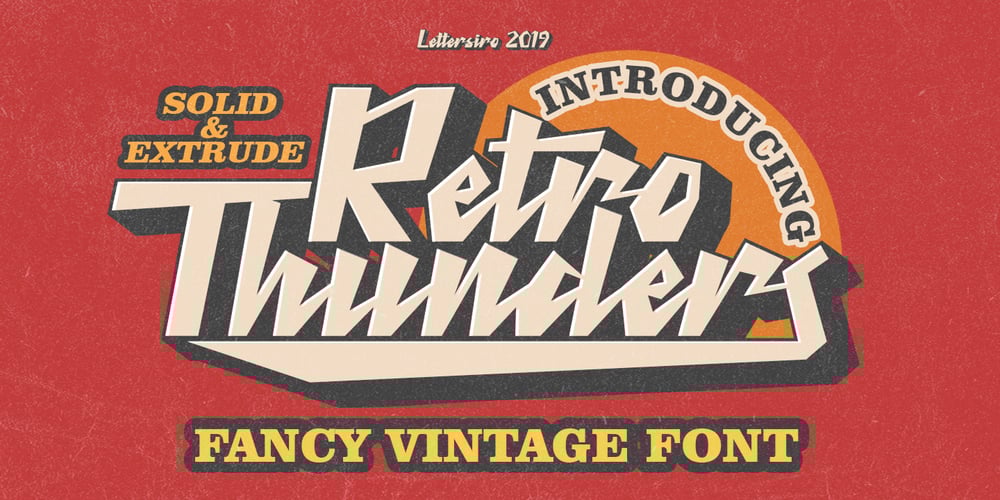
Retro Thunders Font Family was designed by Muhammad Sirojuddin and published by Lettersiro. Retro Thunders contains 2 styles and family package options. This is our newest product, inspired by retro style. We call this font “Retro Thunders”. Retro Thunders is perfect for any retro project, poster, logo, label, clothing, music album cover, and many others. Comes with solid and extrude style, you can use this font easily, and make save a lot of your time in creating. Retro Thunders also contains: – Opentype Features : swash, ligatures, stylistic alternate, ss01, ss02 , ss03 – 8 end swashes – Basic Latin Language Support (AÀÁÂÃÄÅCÇDÐEÈÉÊËIÌÍÎÏNÑOØÒÓÔÕÖUÙÜÚÛWYÝŸÆßÞþ )